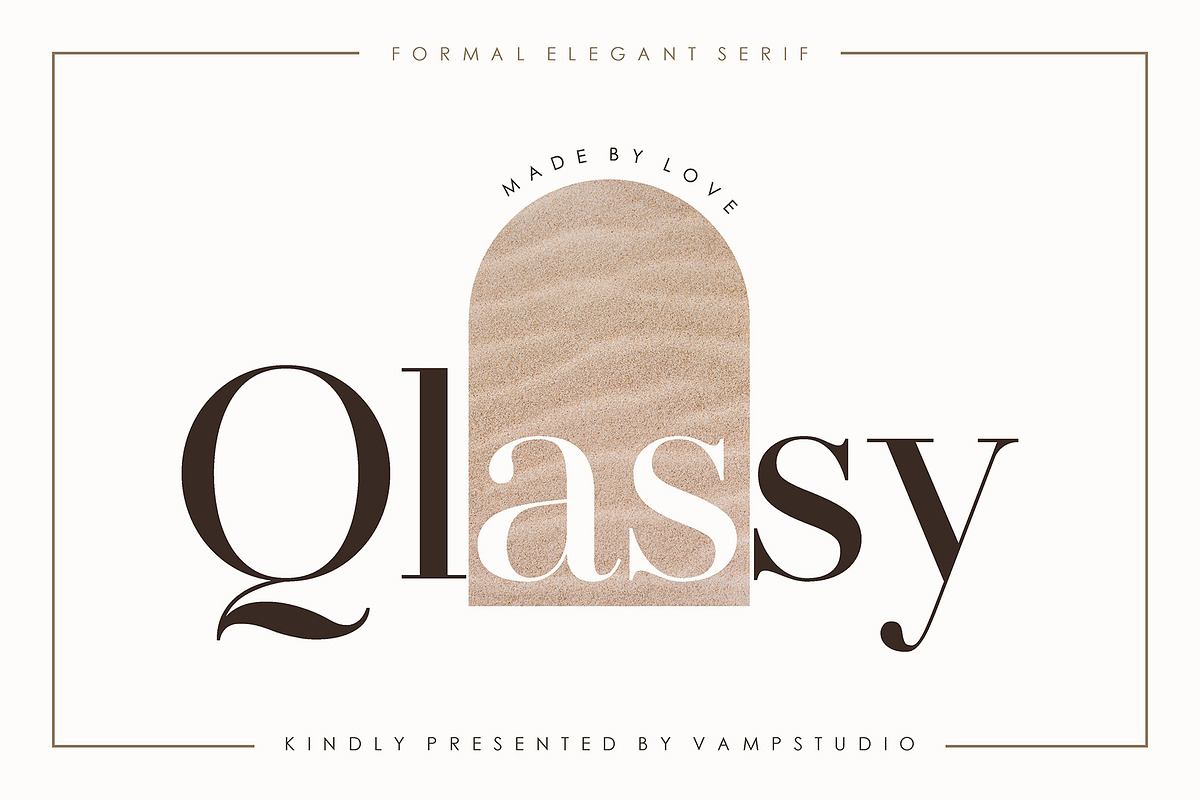
Qlassy Elegant Serif Font Free Download
You must purchase this font for commercial use. However, you can download Qlassy Elegant Serif Font Free Download for testing purposes. Qlassy Elegant Serif Font offers a timeless, sophisticated appearance perfect for premium branding, elegant invitations, editorial layouts, wedding stationery, fashion magazines, and refined social media content. With its graceful serifs and balanced proportions, this font effortlessly combines traditional charm and modern simplicity, making it ideal for projects requiring class and visual appeal. Its versatile letterforms enhance readability while maintaining a luxurious aesthetic, suitable for both digital and print media. Qlassy Elegant Serif Font Free Download is available in multiple weights, providing creative flexibility to designers who seek distinction and elegance in their typography choices. Incorporate Qlassy Elegant Serif Font Free Download into your next design project and experience how seamlessly it enhances your work's professionalism and beauty. Remember to adhere to licensing guidelines for commercial usage. Download now to explore its refined charm firsthand.